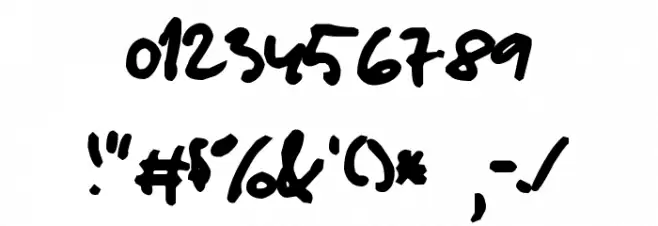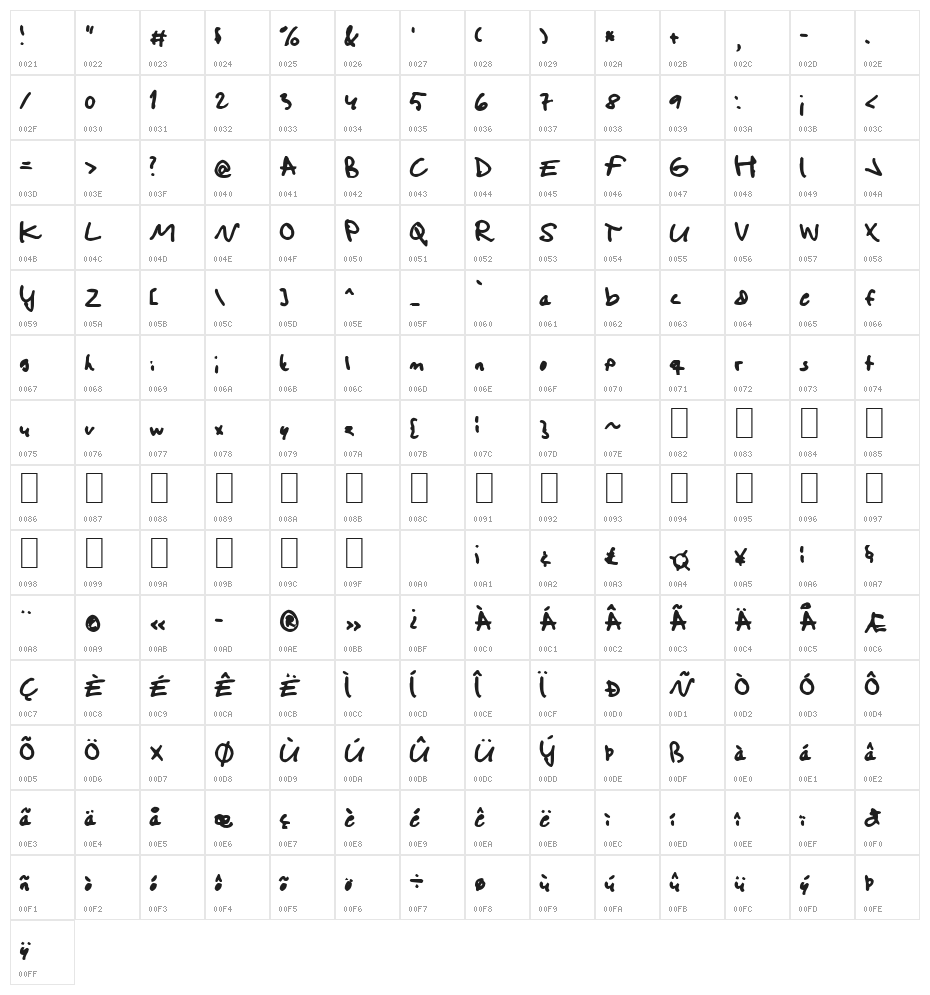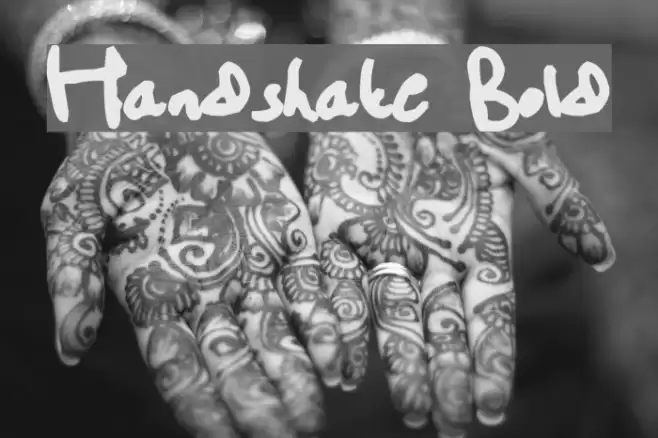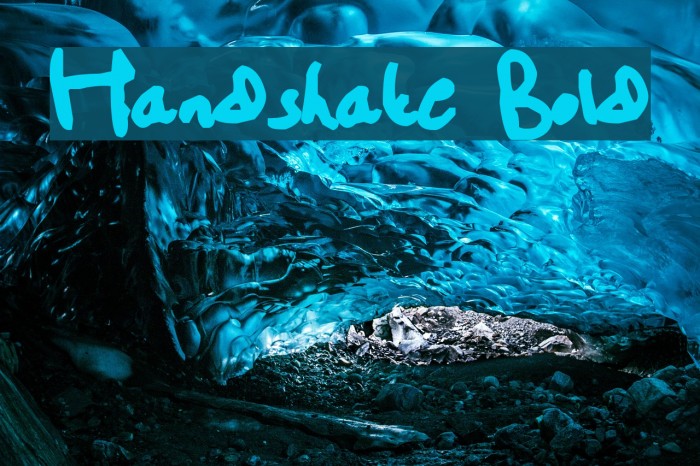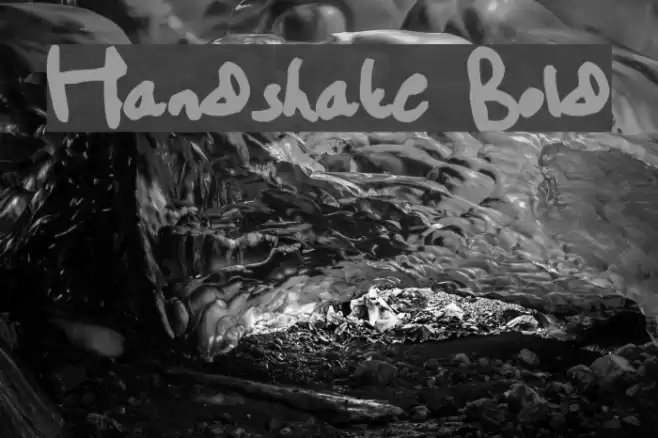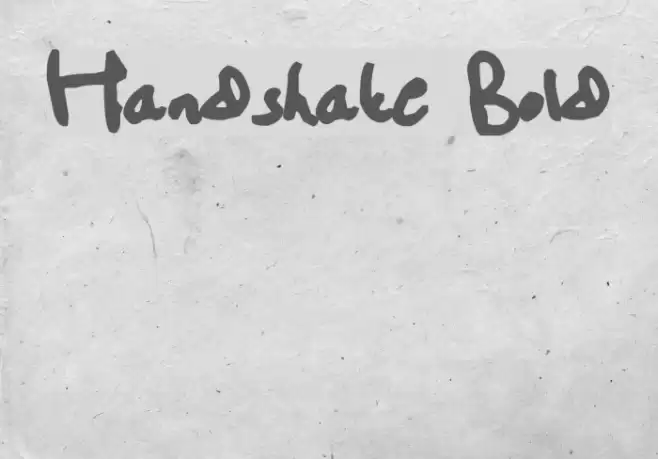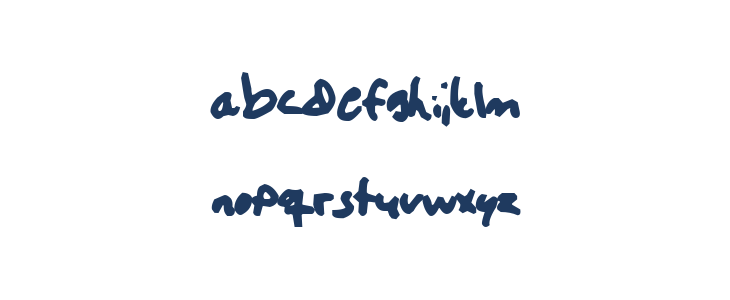
Handshake Bold Font
Handshake Bold Description
This font features a bold, handwritten style that exudes a casual and personal touch. The letters are slightly slanted, giving a dynamic and energetic feel. The strokes are thick and consistent, providing a strong visual impact. The uppercase and lowercase letters maintain a cohesive look, while the numbers and special characters blend seamlessly with the overall design. The font's informal and approachable nature makes it ideal for projects that require a personal or creative flair.
| Overall Style | Casual and Energetic |
| Proposed Projects | Ideal for greeting cards, personal branding, creative posters, and informal invitations. |